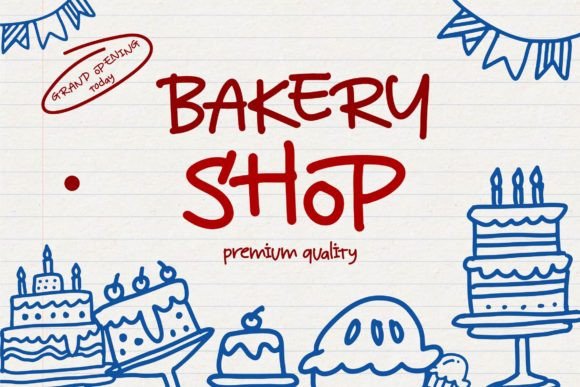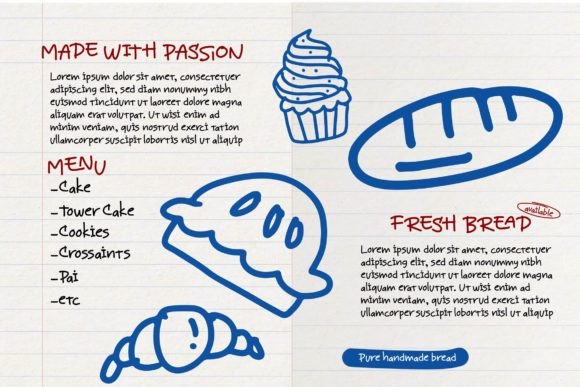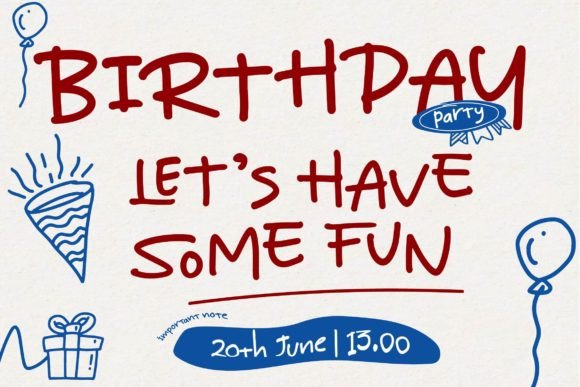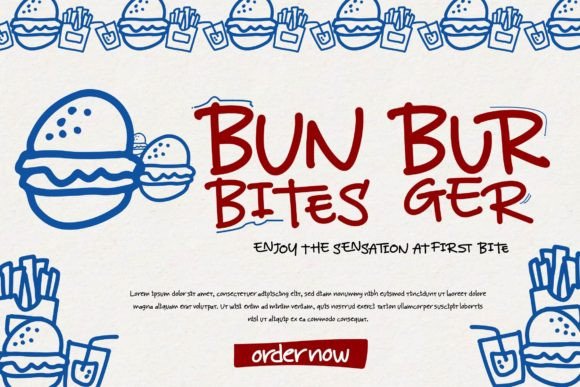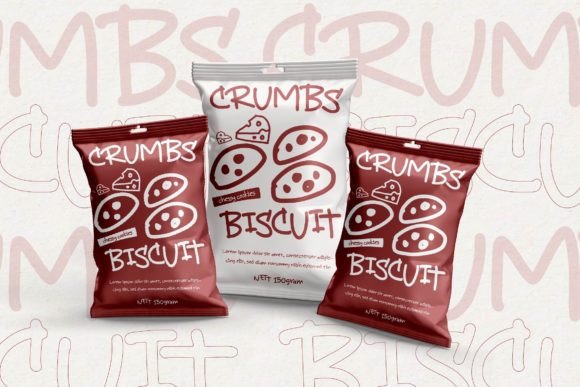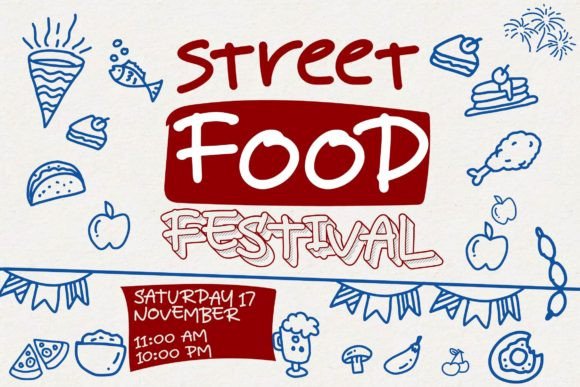
Gourmet Eatery: The Perfect Doodle Typeface for Your Creative Projects
Are you a designer or crafter looking for a unique and stylish font to elevate your projects? Look no further than Gourmet Eatery, a delightful Doodle Typeface that’s perfect for a wide range of creative endeavors. In this article, we’ll explore the features and benefits of Gourmet Eatery, and show you how to make the most of this versatile font.
What is Gourmet Eatery?
Gourmet Eatery is a carefully crafted Doodle Typeface that’s designed to add a touch of whimsy and sophistication to your projects. With its playful, hand-drawn aesthetic, this font is ideal for creating eye-catching logos, branding materials, homeware designs, product packaging, and more.
Key Features of Gourmet Eatery
- Unique Doodle Style: Gourmet Eatery boasts a distinctive Doodle Typeface that’s both fun and elegant.
- Highly Versatile: This font is suitable for a wide range of projects, from logos and branding to homeware designs, product packaging, and more.
- Easily Customizable: Gourmet Eatery can be easily customized to fit your specific needs, making it perfect for designers and crafters.
Project Ideas for Gourmet Eatery
So, what can you create with Gourmet Eatery? The possibilities are endless! Here are some project ideas to get you started:
- Logos and Branding: Use Gourmet Eatery to create a unique and memorable logo for your business or brand.
- Homeware Designs: Add a touch of personality to your homeware designs, such as kitchen utensils, ceramics, and textiles.
- Product Packaging: Make your product packaging stand out with Gourmet Eatery’s playful and eye-catching font.
- Mugs and Drinkware: Create custom mugs, coffee cups, and other drinkware with Gourmet Eatery’s charming Doodle Typeface.
- Quotes and Posters: Use Gourmet Eatery to create inspiring quotes, posters, and prints that showcase your favorite sayings or lyrics.
- Shopping Bags and Packaging: Add a personal touch to your shopping bags, wrapping paper, and other packaging materials.
- T-Shirts and Apparel: Design custom t-shirts, hoodies, and other apparel with Gourmet Eatery’s fun and stylish font.
- Book Covers and Name Cards: Use Gourmet Eatery to create eye-catching book covers, name cards, and other stationery items.
- Invitation Cards and Greeting Cards: Create personalized invitation cards, greeting cards, and other paper crafts with Gourmet Eatery.
- Labels and Watermarks: Use Gourmet Eatery to create custom labels, watermarks, and other graphics for your photos and digital projects.
Tips for Using Gourmet Eatery
To get the most out of Gourmet Eatery, here are some tips to keep in mind:
- Experiment with Colors: Gourmet Eatery looks great in a variety of colors, so don’t be afraid to experiment and find the perfect hue for your project.
- Mix and Match: Combine Gourmet Eatery with other fonts or graphics to create a unique and eye-catching design.
- Pay Attention to Scale: Make sure to adjust the scale of Gourmet Eatery to fit your project’s specific needs.